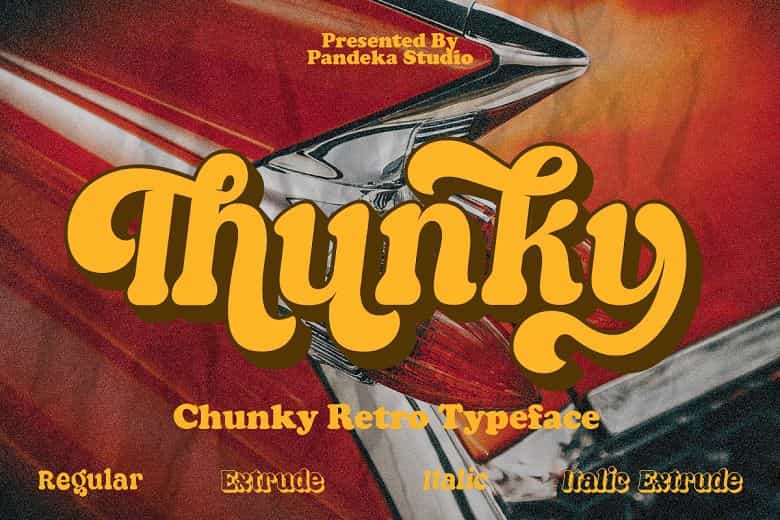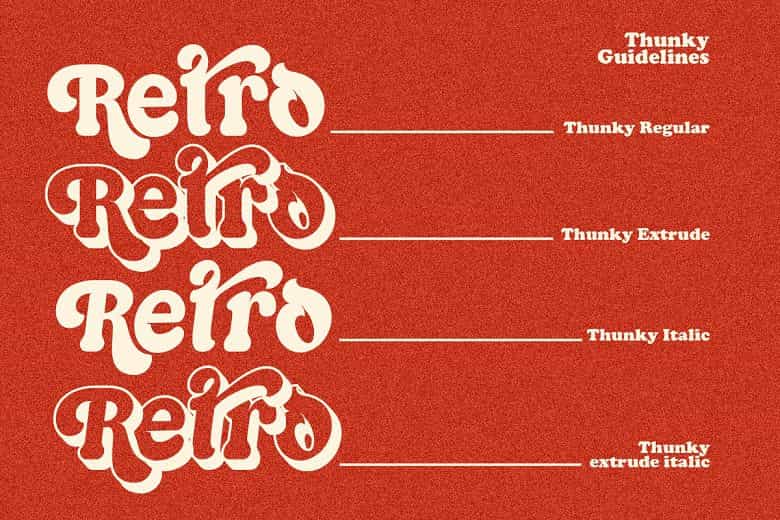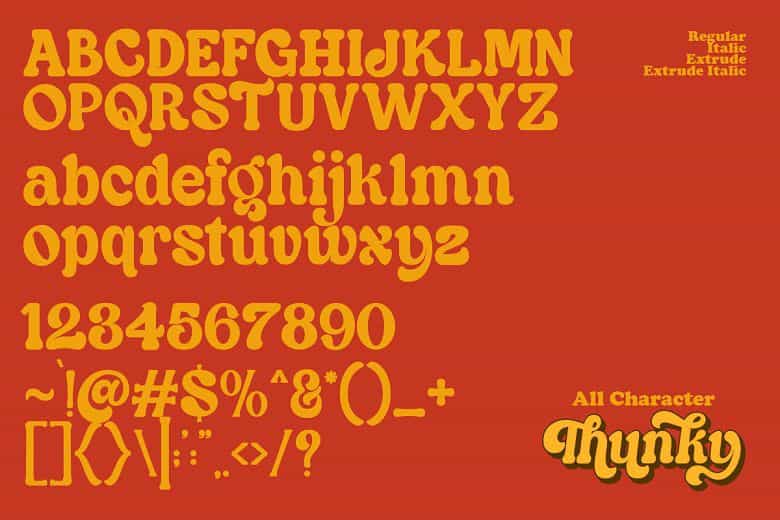
Thunky is a relatively soft and rounded old-style retro serif font that can be characterized by its appearance of the sixties and the seventies. The typeface is friendly and playful due to the soft and juicy serifs that make the design inviting and reminiscent of the past.